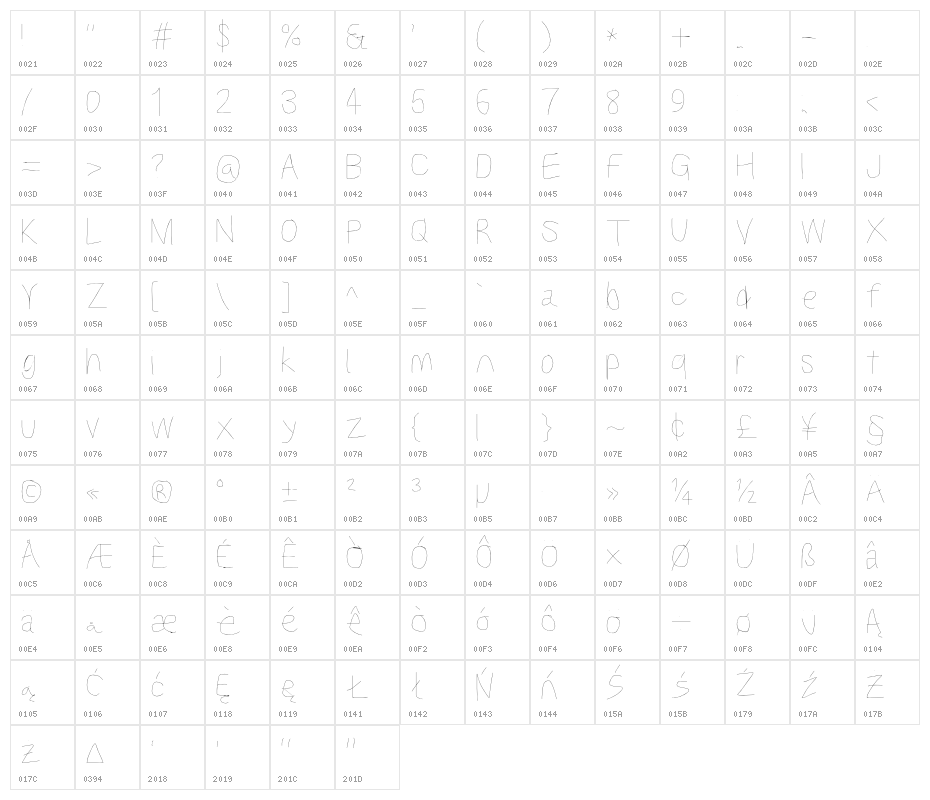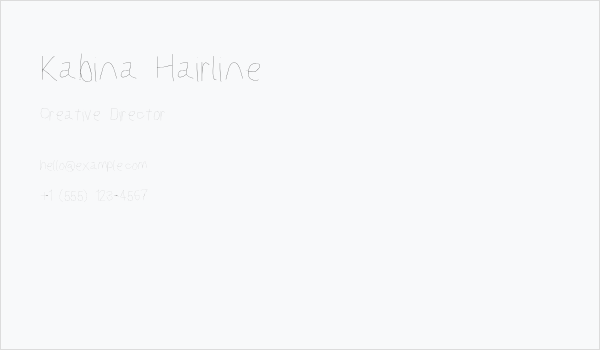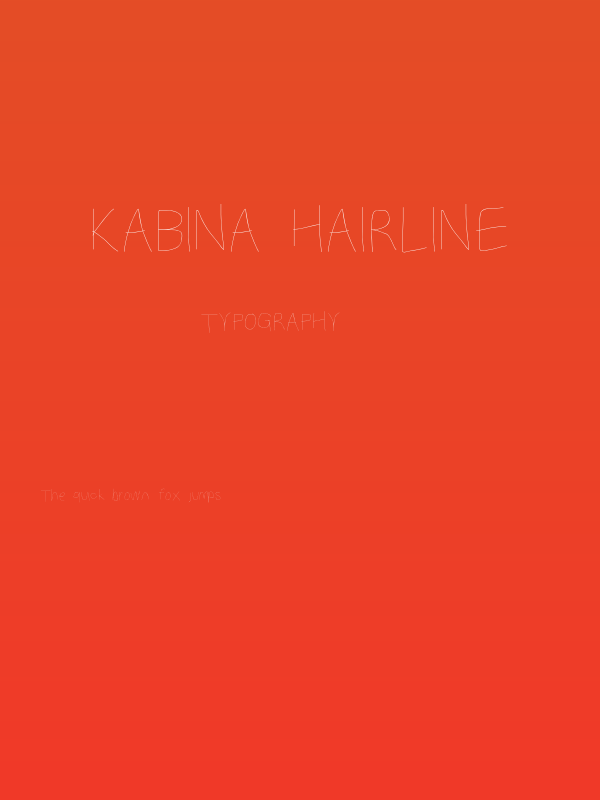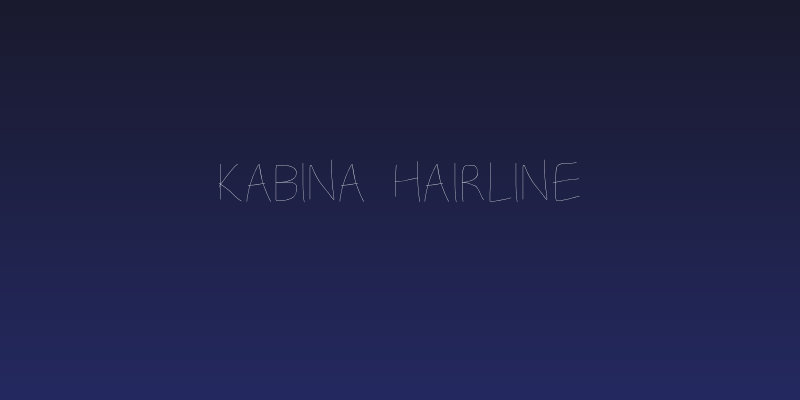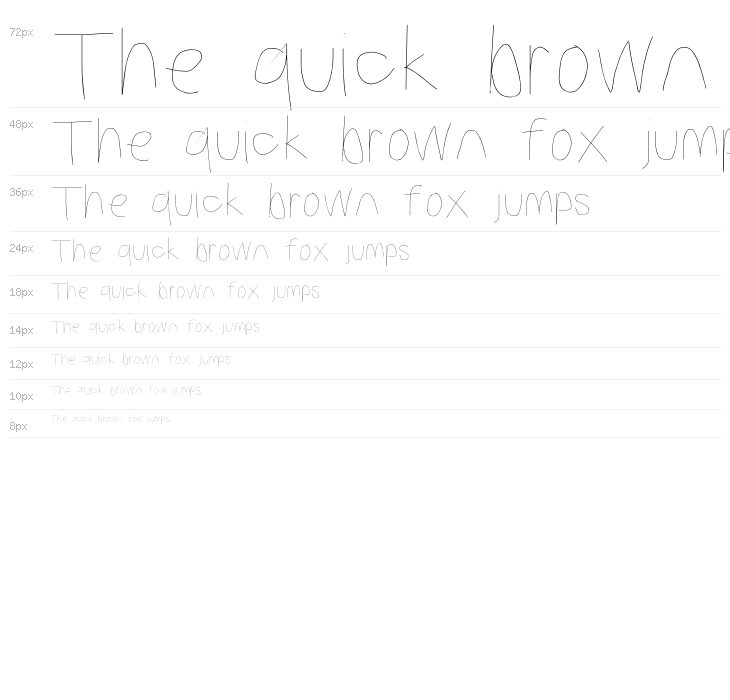
Kabina Hairline Font
Kabina Hairline Description
This font features an ultra-lightweight and delicate design, characterized by its thin strokes and minimalistic appearance. The letters are evenly spaced, providing a clean and airy feel. The uppercase and lowercase letters maintain a consistent height, contributing to a harmonious and balanced look. The numerals and special characters are crafted with the same fine lines, ensuring uniformity across all elements. This font's simplicity and elegance make it suitable for projects that require a subtle yet sophisticated touch.
| Use Case | Logos, Invitations, Stationery |
| Proposed Projects | Ideal for wedding invitations, minimalist branding, elegant stationery, and high-end product packaging. |